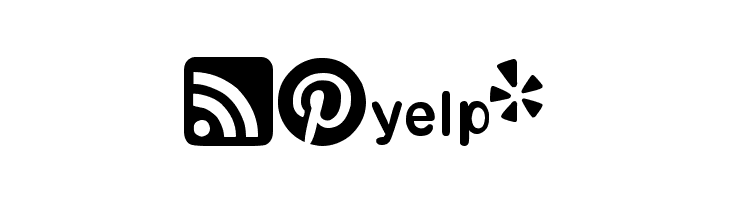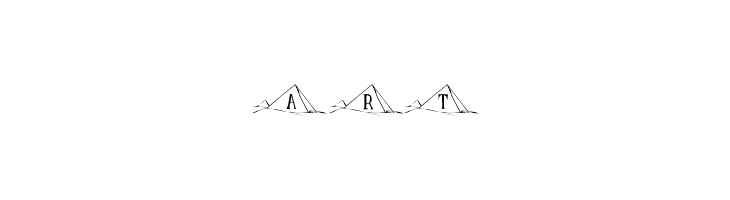
A versatile collection of monochrome social media logos, designed for easy recognition and integration.
A decorative display font mimicking popular brand logos.
A decorative font with letters embedded in pyramid-like designs.
A modern sans-serif font supporting Canadian Aboriginal syllabics with clarity and simplicity.
A medium weight, extra condensed font designed for clarity and space efficiency, ideal for Khmer script.
A collection of stylized zodiac symbols with unique curves and lines.